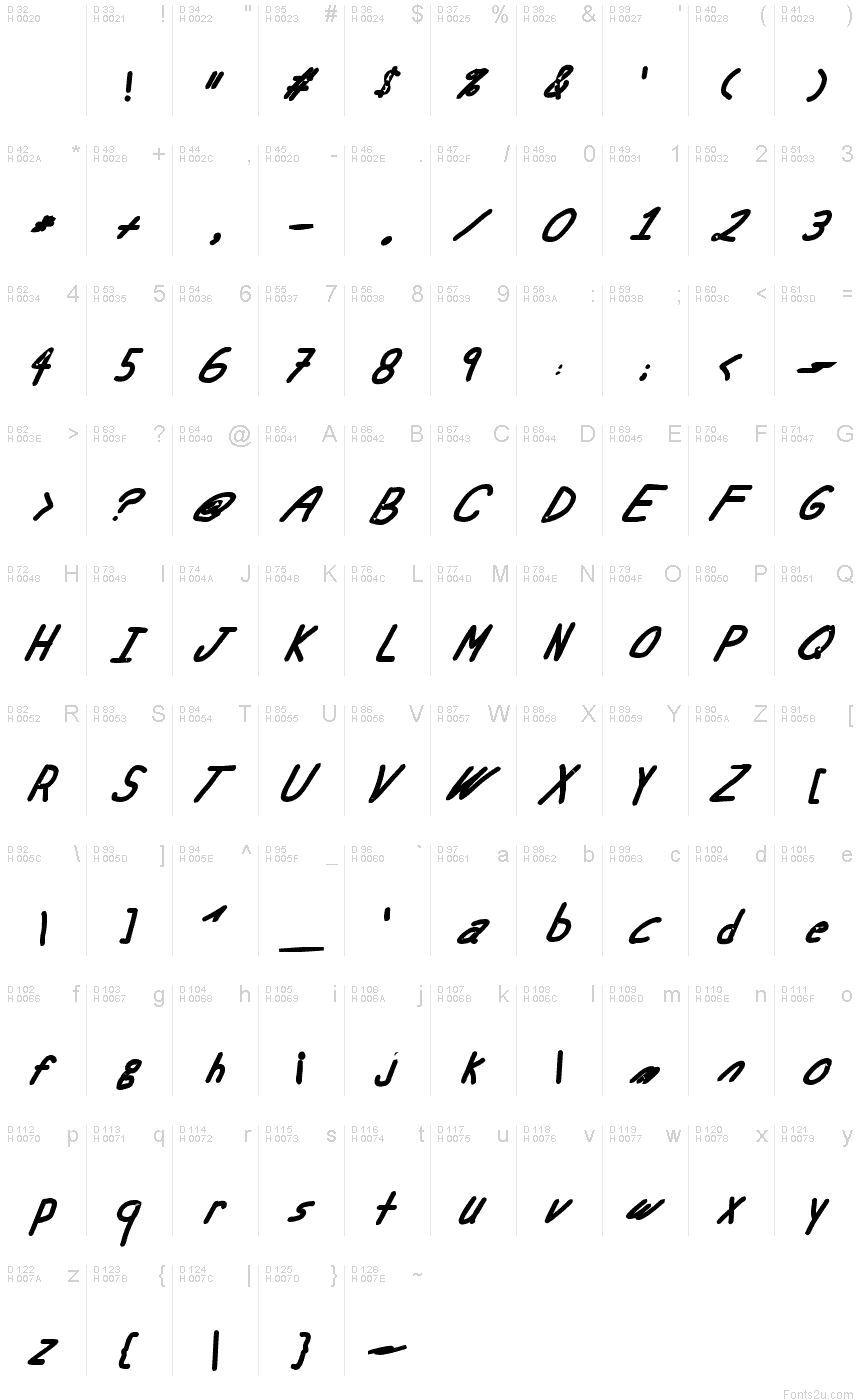
Swabby Bold Italic by Brian Sullivan is a free bold brush script built from broad, fast strokes and a strong forward slant. Rounded curves meet pointed starts and tapered finishes. Uneven joins make the writing feel brisk and hand-painted.
Food and drink branding is its strongest setting, with the sweeping letters well suited to logos, packaging, and event posters. That same lively motion also fits surf merchandise and music graphics with an upbeat, informal theme.